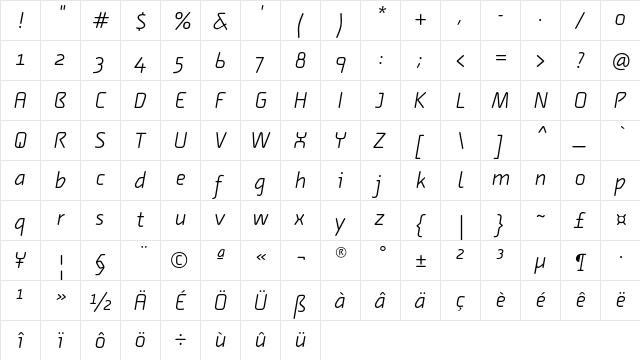
AlegaGreek-LightItalic Regular Font Preview
| Foundry | Siegfried Rueckel, published by FontShop International for the FontFont library |
Design Context for AlegaGreek-LightItalic Typeface
AlegaGreek-LightItalic takes a measured approach to typography — its balanced proportions and neutral character make it a reliable workhorse for both digital and print work. Its italic angle brings a sense of urgency and motion to the letterforms. Its slender proportions lend an understated elegance to any composition.
Pro Tip: Use AlegaGreek-LightItalic for emphasis, pull quotes, and subheadings where its slanted energy can add rhythm to the layout.